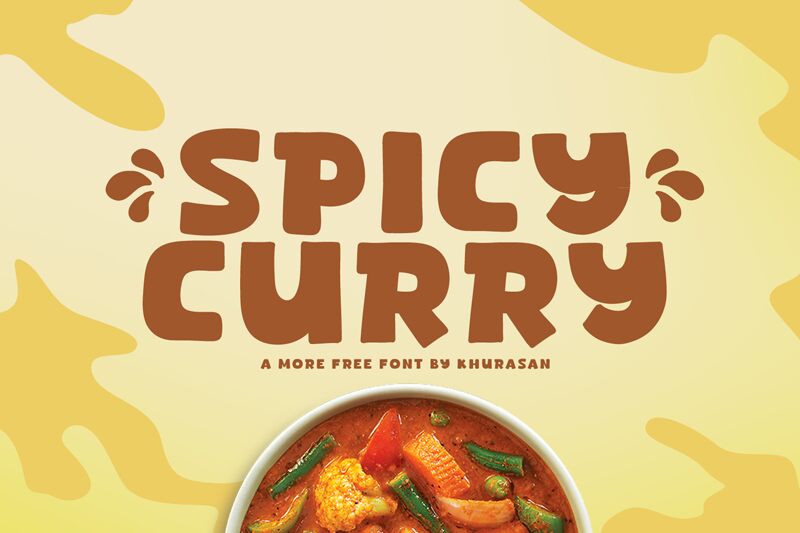
Spicy Curry
Spicy Curry, designed by Khurasan, is a delightful display font that adds a dash of playful charm to any project.
With its extra-bold weight and semi-expanded width, this comic-style typeface is perfect for capturing attention and bringing a touch of whimsy to children's books, greeting cards, and party invitations. Its bold strokes and unique character shapes make it an excellent choice for logo design, branding projects, or even eye-catching headlines in magazines.
Spice up your designs with Spicy Curry and let your creativity shine!